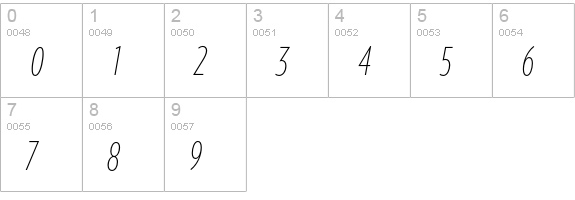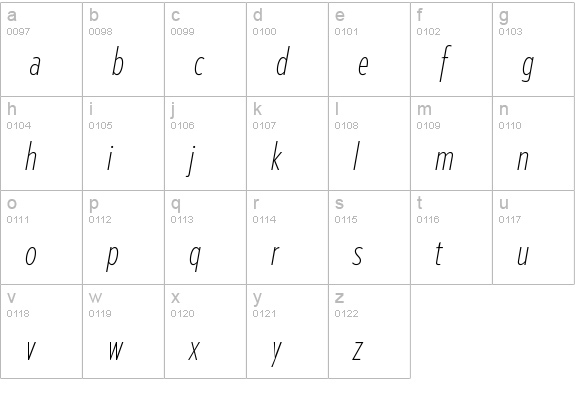
Verlag Compressed XLight Italic Font Details
Verlag Compressed XLight Italic is a distinctive, condensed-width, italic variant in the Verlag typeface family \xE2\x80\x94 well suited to design and typography projects.
Verlag Compressed XLight Italic font is a sleek and modern typeface that exudes elegance and sophistication. Its slender and italicized design lends a sense of movement and dynamism to any text. The delicate curves and refined strokes give this font a unique and contemporary look that is perfect for branding, editorial design, and more. What sets Verlag Compressed XLight Italic font apart is that it is freely available to download at FontsMarket.com. This means that you can easily access this high-quality font for your projects without any cost. Whether you're designing a website, creating marketing materials, or working on a personal project, Verlag Compressed XLight Italic font is a versatile and stylish choice that will elevate your designs.